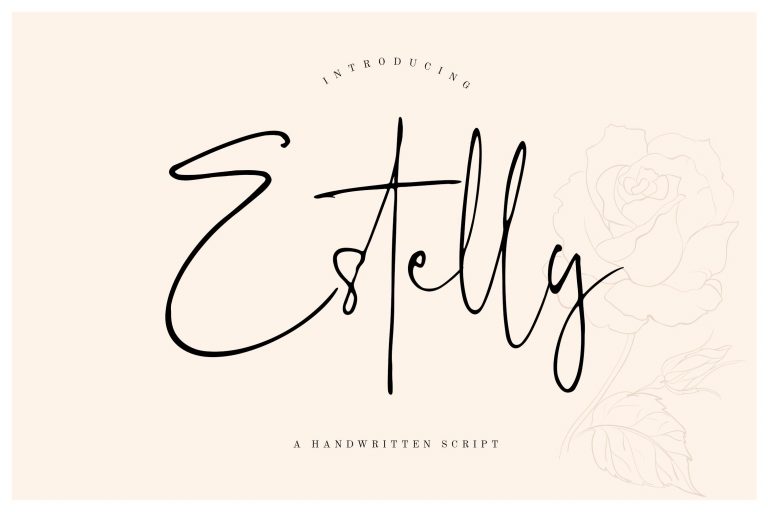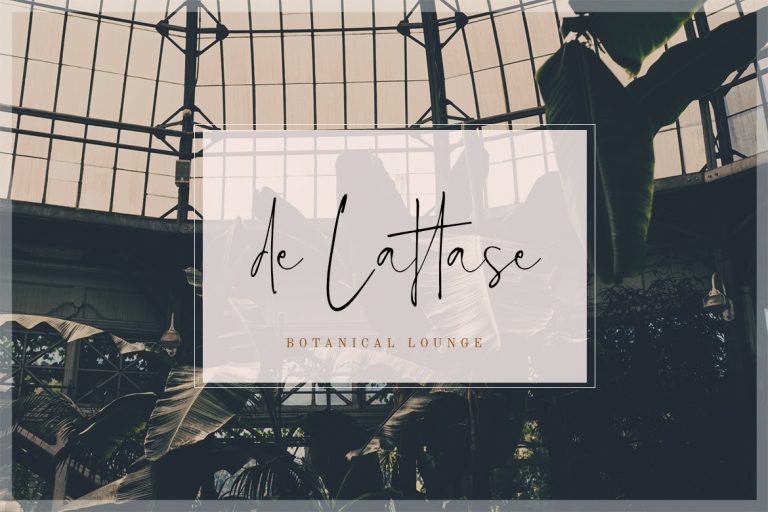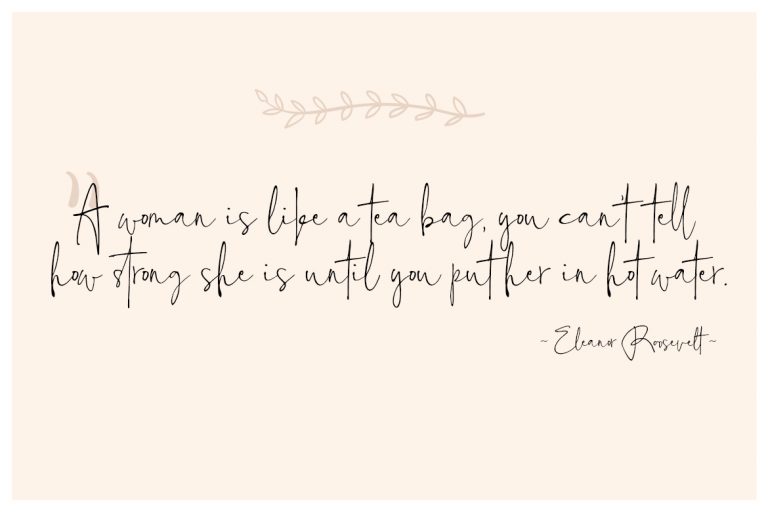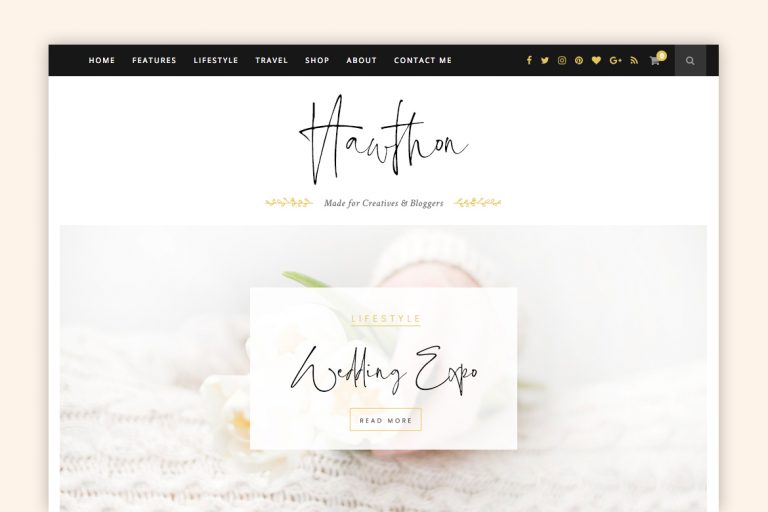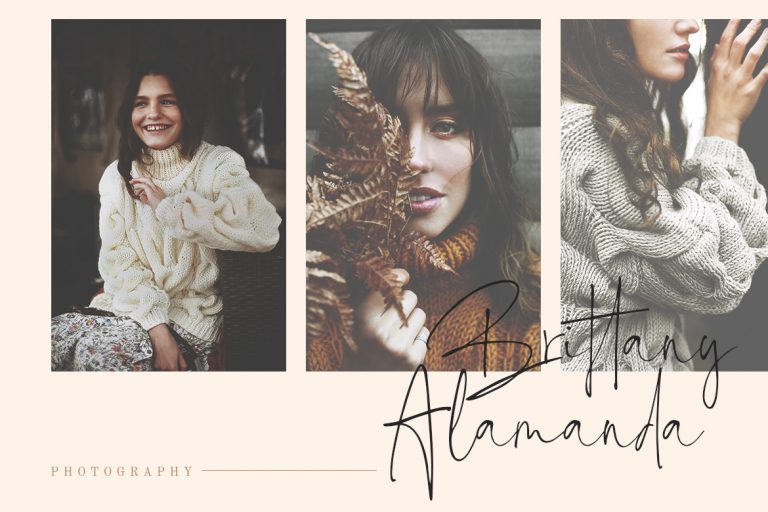
Estelly Stylish Signature
Estelly is a handwritten stylish signature font with classy energetic looks make it perfect for any awesome projects.
Estelly is perfect for branding projects, logo, wedding designs, social media posts, advertisements, product packaging, product designs, label, photography, watermark, invitation, stationery and any projects that need handwriting taste.